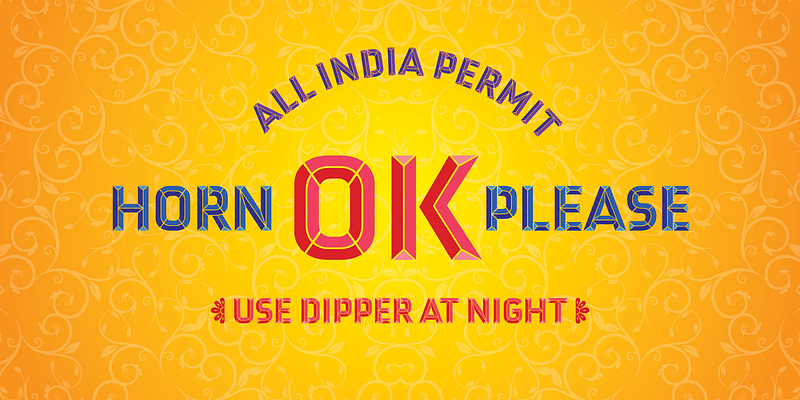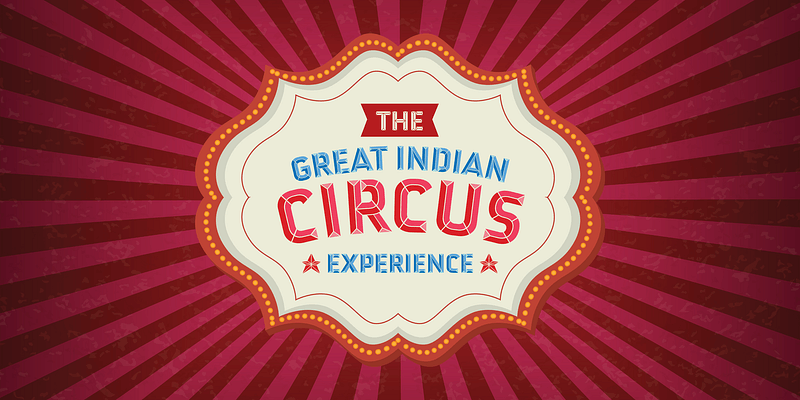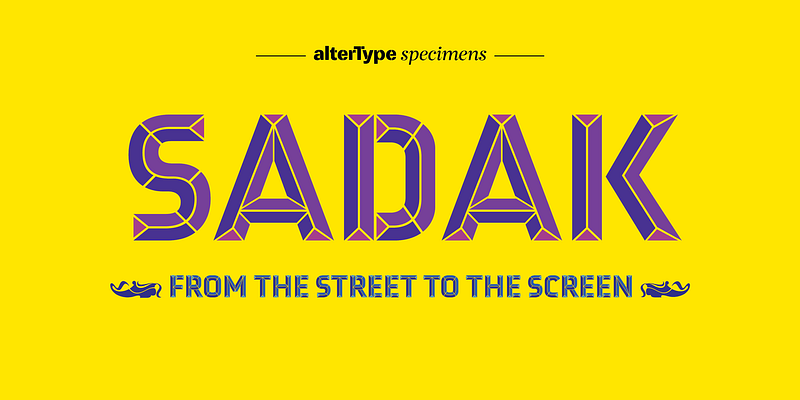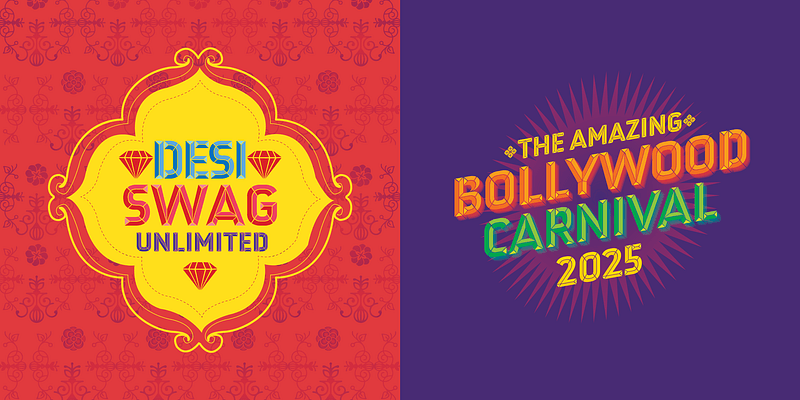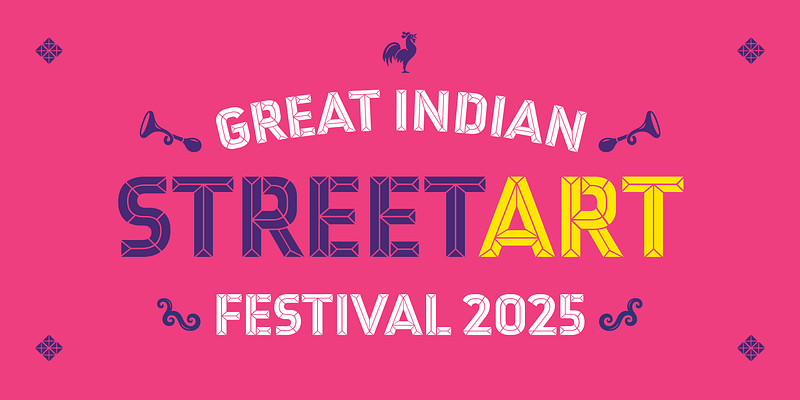
Sadak is a vibrant colour display typeface inspired by the bold, bevelled, and often three-dimensional lettering seen on Indian street signboards—especially those decorating juice stalls, trucks, and paan shops. Bursting with character, Sadak captures the layered depth, dramatic shadows, and handcrafted energy of roadside typography. With its chunky forms and lively dimensionality, Sadak is designed to stand out—perfect for posters, branding, and any design that aims to echo the hustle, humor, and visual chaos of the Indian street.